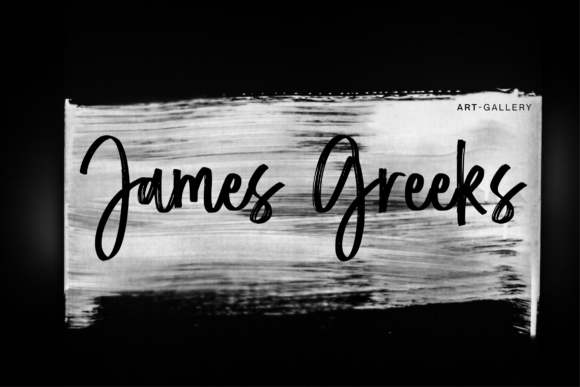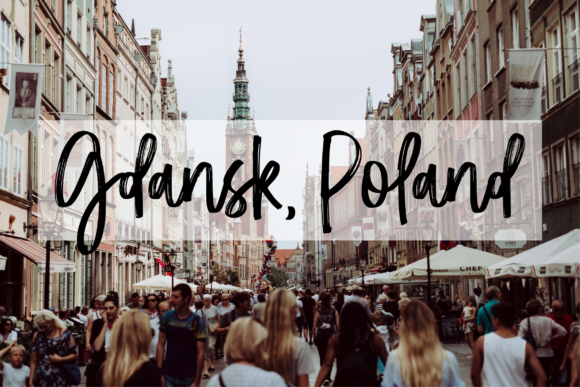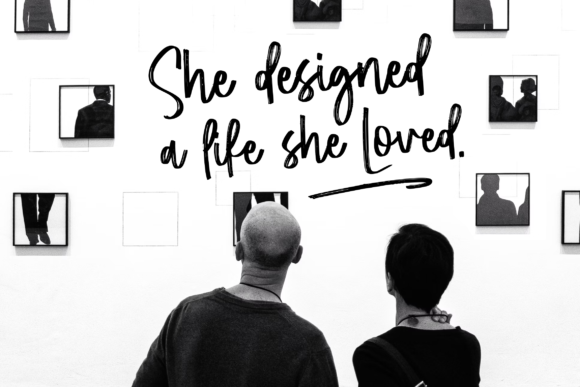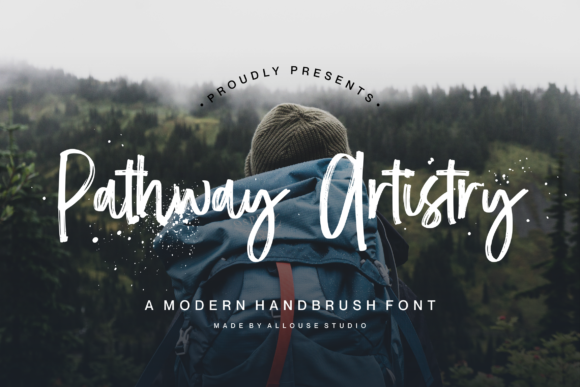
Introduction to Pathway Artistry Font
Pathway Artistry is a brushed and chic script font.
It is perfect for product packaging, branding project, magazine covers, social media, wedding, or just used to express words above the background .
Pathway Artistry Font offers exceptional quality and versatility, making it a valuable addition to your design toolkit. Whether you’re creating for personal projects or commercial use, Pathway Artistry Font delivers professional results.